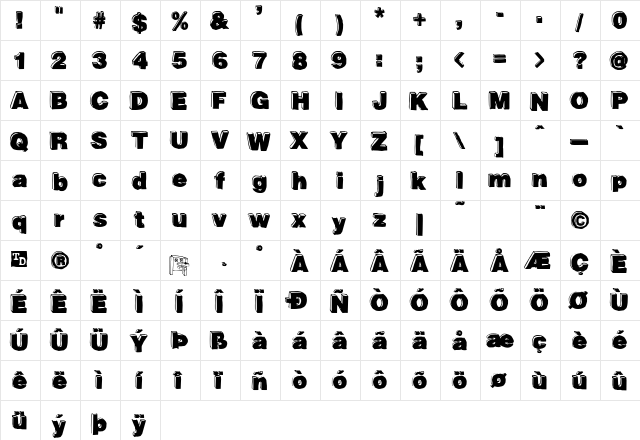
BlockDog Front Regular
Design Context for BlockDog Front Typeface
BlockDog Front is a composed and adaptable typeface that performs quietly and consistently across a wide range of design contexts.